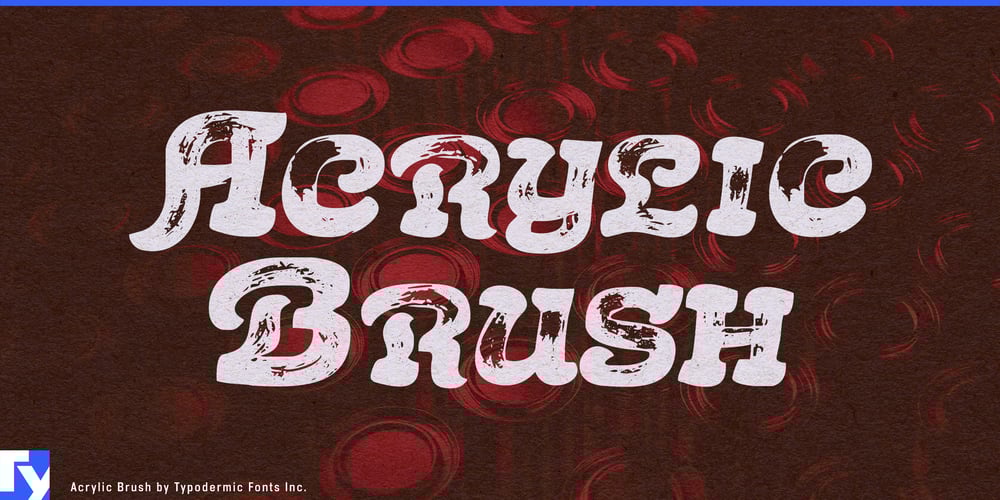
Acrylic Brush Font Family was designed by Ray Larabie and published by Typodermic. Acrylic Brush contains 1 styles and family package options. Discover Acrylic Brush, an exquisite script typeface that infuses designs with artistic sophistication. This unique font family stands out with its small-caps and unconnected style, offering a refined aesthetic that elevates any project. Acrylic Brush’s defining characteristic—a subtle faded paint effect—imbues text with a handcrafted, vintage allure that captivates viewers and adds depth to visual compositions.Acrylic Brush isn’t just visually striking; it’s engineered for seamless use. Its OpenType features automatically substitute double letter combinations with ligatures, ensuring a natural, fluid appearance that mimics the organic flow of handwritten text. This attention to typographic detail allows designers to create polished, professional-looking work with ease.The versatility of Acrylic Brush makes it an indispensable tool for a wide array of design applications. From distinctive logotypes and eye-catching posters to engaging social media graphics, this typeface brings a touch of creative distinction to every project. Its ability to convey both artistry and sophistication makes it particularly well-suited for brands and initiatives that aim to blend craftsmanship with contemporary design sensibilities.Acrylic Brush supports a comprehensive range of Latin-based European languages, ensuring broad linguistic versatility. This extensive language support allows designers to maintain visual consistency across various markets while preserving the typeface’s unique aesthetic qualities. Whether you’re crafting content for local audiences or international campaigns, Acrylic Brush provides the tools to communicate effectively and stylishly.For designers seeking to transcend the ordinary and imbue their work with genuine artistic flair, Acrylic Brush offers a compelling solution. Its unique blend of vintage charm and modern functionality provides a fresh alternative to conventional script fonts. Experience how Acrylic Brush can transform your typography from mere text to expressive visual storytelling—elevating your designs to new heights of creativity and impact.